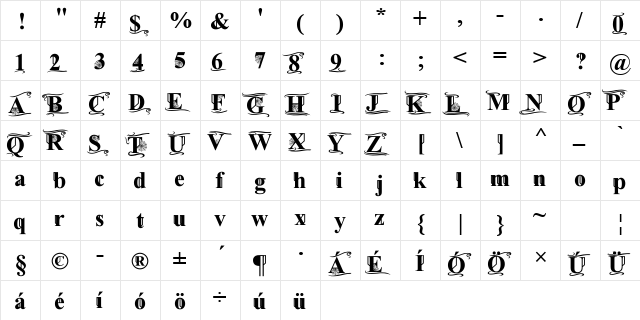
Times Old Attic Bold Font Preview
Times Old Attic Bold
Times Old Attic Bold Font Details
| Foundry | Monotype Typography |
| Designer | Monotype Type Drawing Office - Stanley Morison, Victor Lardent 1932 |
Design Context for Times Old Attic Typeface
Times Old Attic takes a measured approach to typography — its balanced proportions and neutral character make it a reliable workhorse for both digital and print work. The heavy weight commands attention and anchors typographic hierarchies.